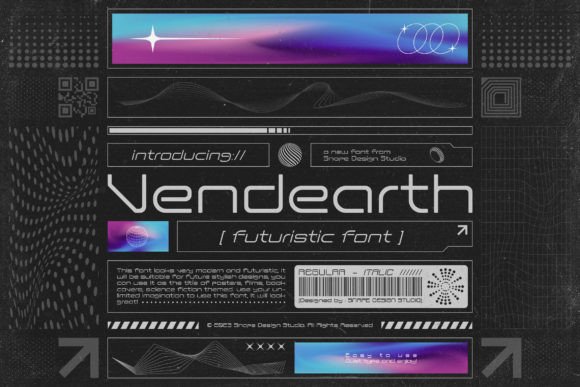
Introducing Vendearth: The Futuristic Sans Serif Redefining Typography
In the ever-evolving world of design, typography plays a pivotal role in conveying messages, expressing creativity, and shaping brand identities. As technology continues to advance and the digital landscape expands, the demand for innovative and forward-thinking fonts has never been greater. It is in this context that Vendearth emerges, a revolutionary sans serif font collection that embodies the perfect fusion of innovation and aesthetics. Vendearth is not just a typography; it’s an experience, designed to redefine the future of design with its sleek, dynamic, and visually striking characters.
The Genesis of Vendearth
Vendearth’s creation is rooted in the desire to bridge the gap between technology and artistry. The font’s design process involved a deep dive into the realms of futuristic typography, where the essence of sci-fi themes and tech branding was meticulously analyzed. The goal was to craft a font that could effortlessly adapt to various design needs while maintaining a distinctive edge. Vendearth achieves this by integrating clean lines, fluid curves, and a highly legible structure, making it an ideal choice for a wide array of applications.
A sample of the Vendearth font in use, showcasing its versatility and aesthetic appeal.
Key Features of Vendearth
- Modern Aesthetic: Vendearth boasts a futuristic look that instantly elevates any design. Its sleek and dynamic characters are crafted to captivate audiences and give projects a contemporary feel.
- Versatility: This font collection is incredibly versatile, suitable for a myriad of design projects ranging from sci-fi themes and tech branding to advertising and digital content creation.
- User-Friendly Customization: Understanding the importance of flexibility in design, Vendearth offers extensive customization options. Designers can easily modify the font to fit their project’s specific needs, ensuring a perfect alignment with the overall design strategy.
- Seamless Technology Integration: Vendearth is designed to work flawlessly across various platforms and devices. Its optimized structure ensures that it remains clear and legible, even at smaller sizes, making it perfect for digital media.
Applications of Vendearth
The potential applications for Vendearth are vast and varied. Here are a few areas where this innovative font truly shines:
Sci-Fi and Gaming
Vendearth’s futuristic appeal makes it a natural fit for sci-fi movies, video games, and themed merchandise. Its dynamic and visually striking characters help create immersive experiences that draw audiences into new worlds.
Tech Branding
For tech companies looking to establish a modern and innovative brand identity, Vendearth offers a typography solution that communicates cutting-edge technology and forward-thinking values.
Digital Content and Advertising
In the digital realm, Vendearth can be used to create eye-catching advertisements, engaging social media content, and professional website designs. Its legibility and aesthetic appeal make it perfect for grabbing and retaining viewer attention.
The Future of Typography with Vendearth
The introduction of Vendearth marks a significant milestone in the evolution of typography. As design continues to evolve, the demand for fonts that can keep pace with technological advancements and shifting aesthetic trends will only increase. Vendearth is poised to lead this charge, offering a typographic solution that is not only of the moment but also forward-thinking.
By combining sleek design elements with functional versatility, Vendearth empowers designers to push the boundaries of creativity. It invites them to explore new design territories, experiment with different styles, and bring their most ambitious projects to life.